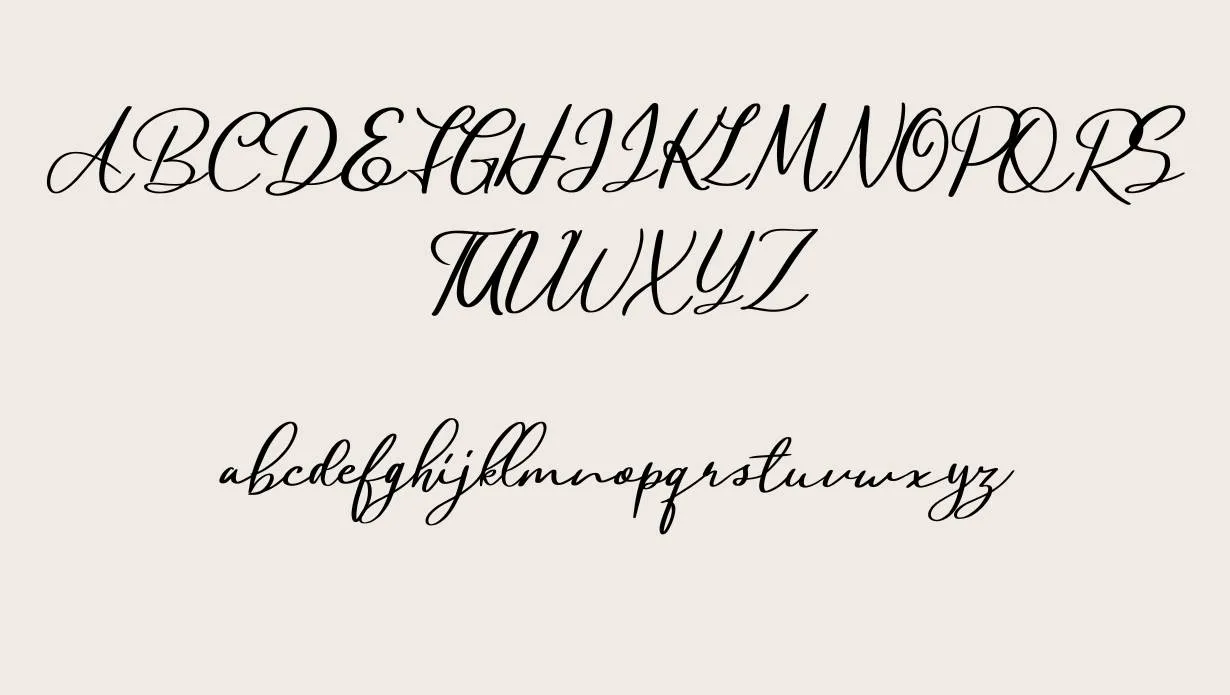
Balony Font is a Handwritten font that was crafted by Rian Rahardi and published by Creatype Studio. It has a casual and natural style that makes it perfect for creative projects.
| Name | Balony Font |
| Designer | Rian Rahardi |